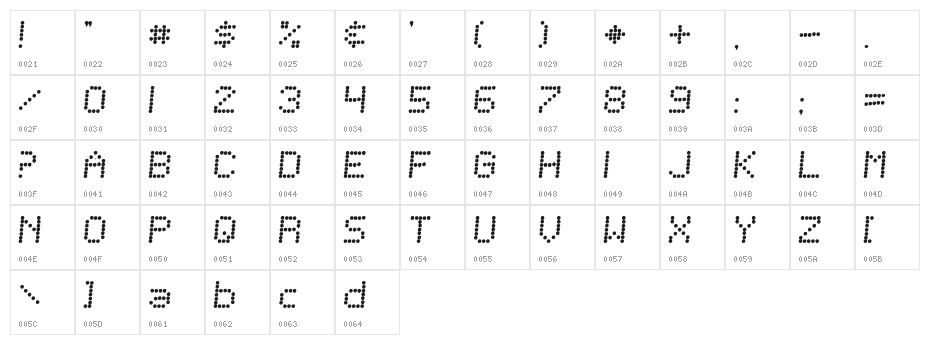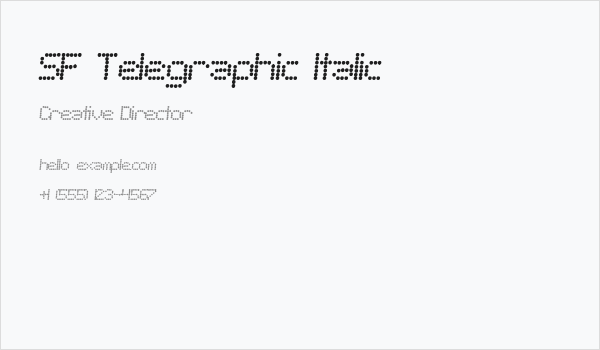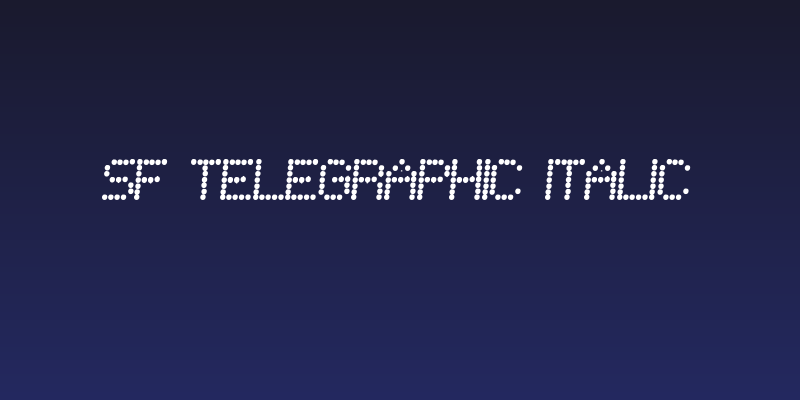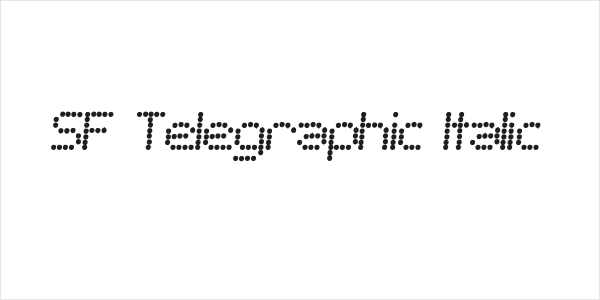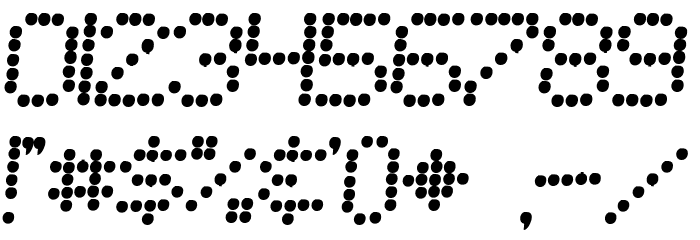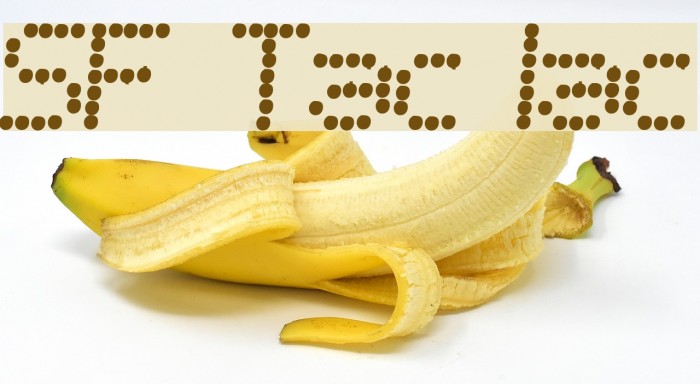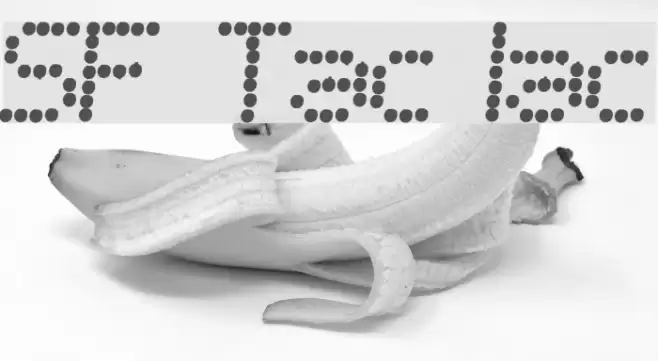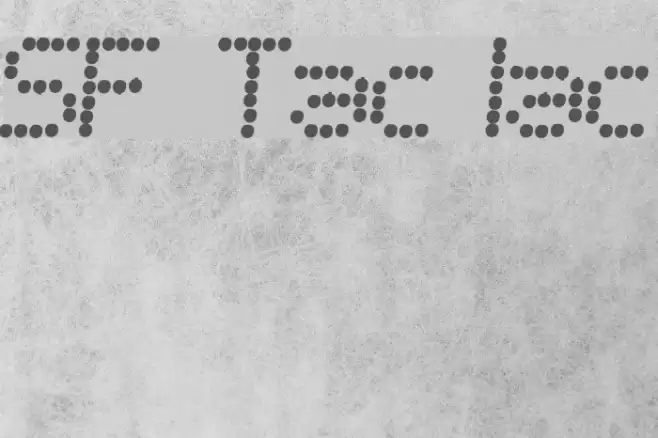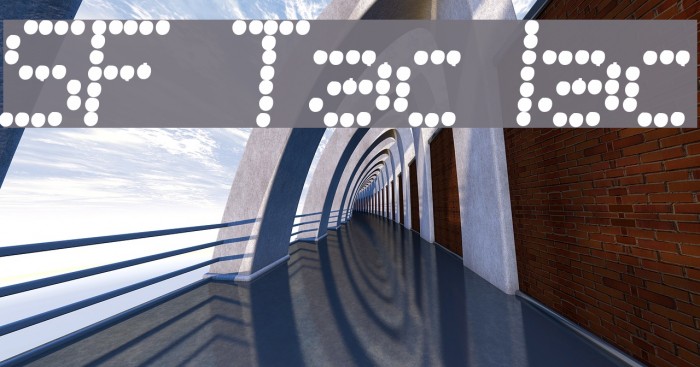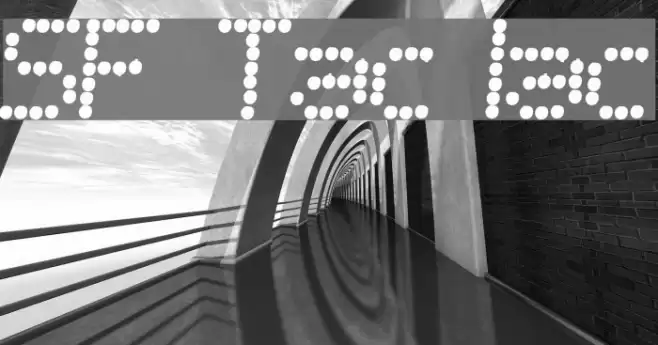
SF Telegraphic Italic Font
SF Telegraphic Italic Description
This font features a unique design composed entirely of dots, giving it a digital and futuristic appearance. Each character is formed by a series of evenly spaced dots, creating a cohesive and consistent look across all letters, numbers, and symbols. The italic style adds a dynamic and forward-leaning aspect, enhancing its modern and innovative feel. This font is particularly eye-catching and would stand out in any design project that requires a distinctive and unconventional typeface. The dot-based structure ensures that it remains legible while offering a playful and creative aesthetic.
| Use Case | Logos, Headlines, Posters |
| Proposed Projects | Ideal for digital art, tech-themed designs, modern posters, and creative branding projects. |